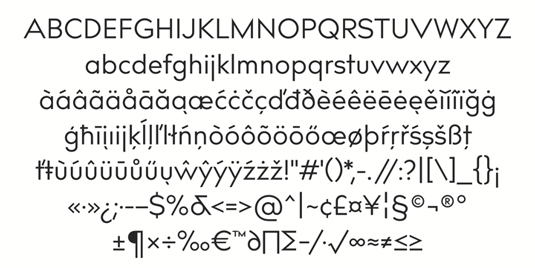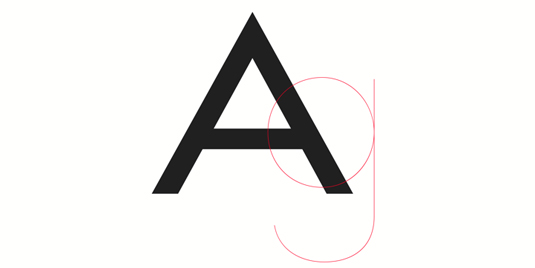
Font of the day: Bill Corporate
Bill Corporate Narrow by Oliver Jeschke and Max Bill
Kick-starting our fonts of the day is Bill Corporate by designers Oliver Jeschke and Max Bill. A sans serif, the typeface is available in 16 styles and support Central, Eastern European and Western European languages.